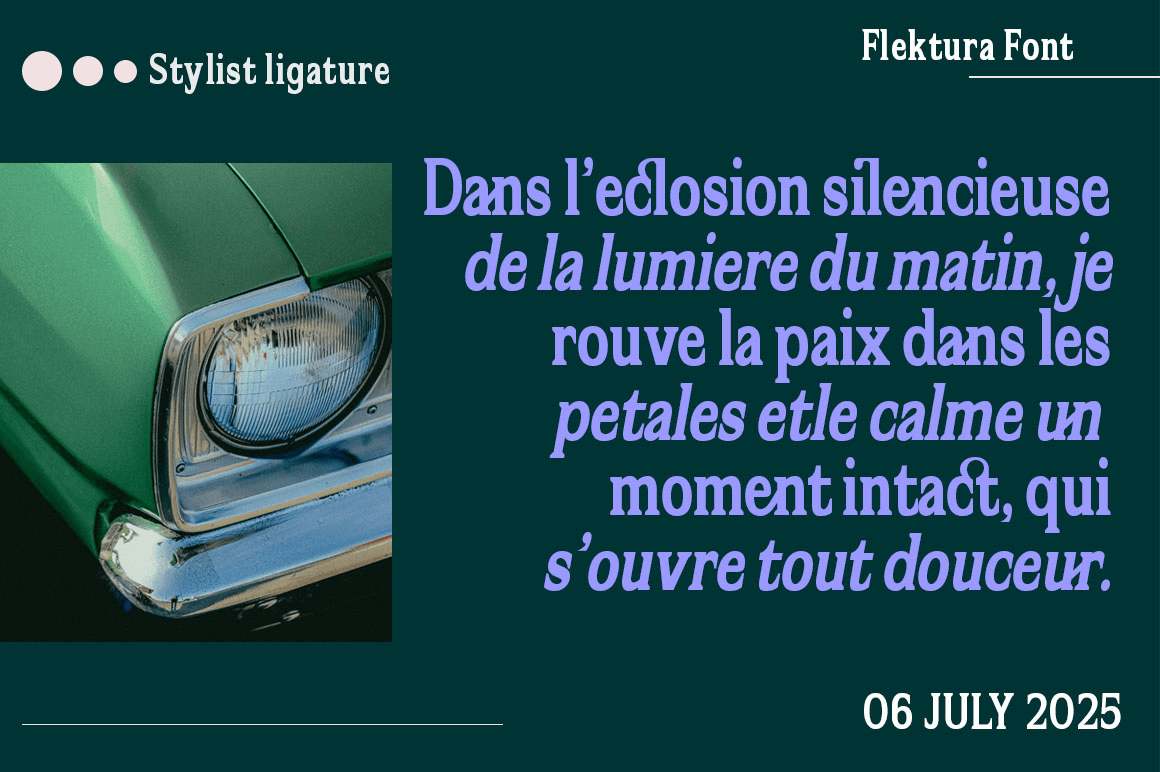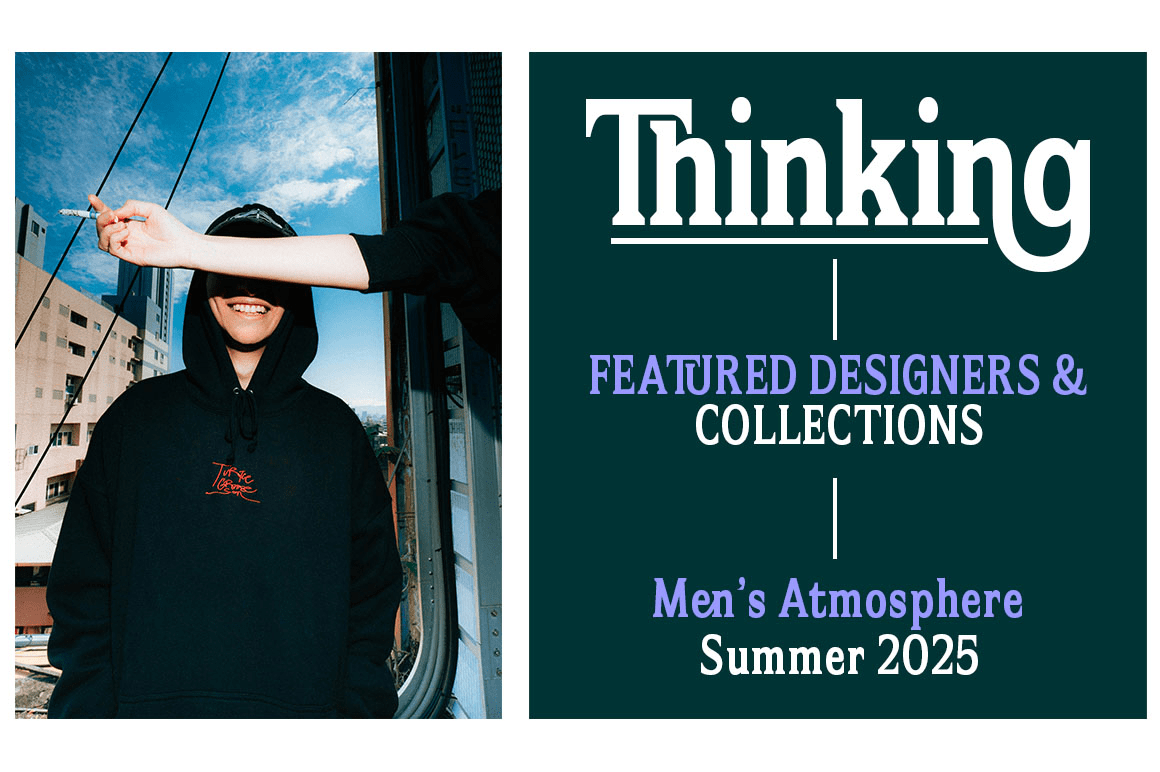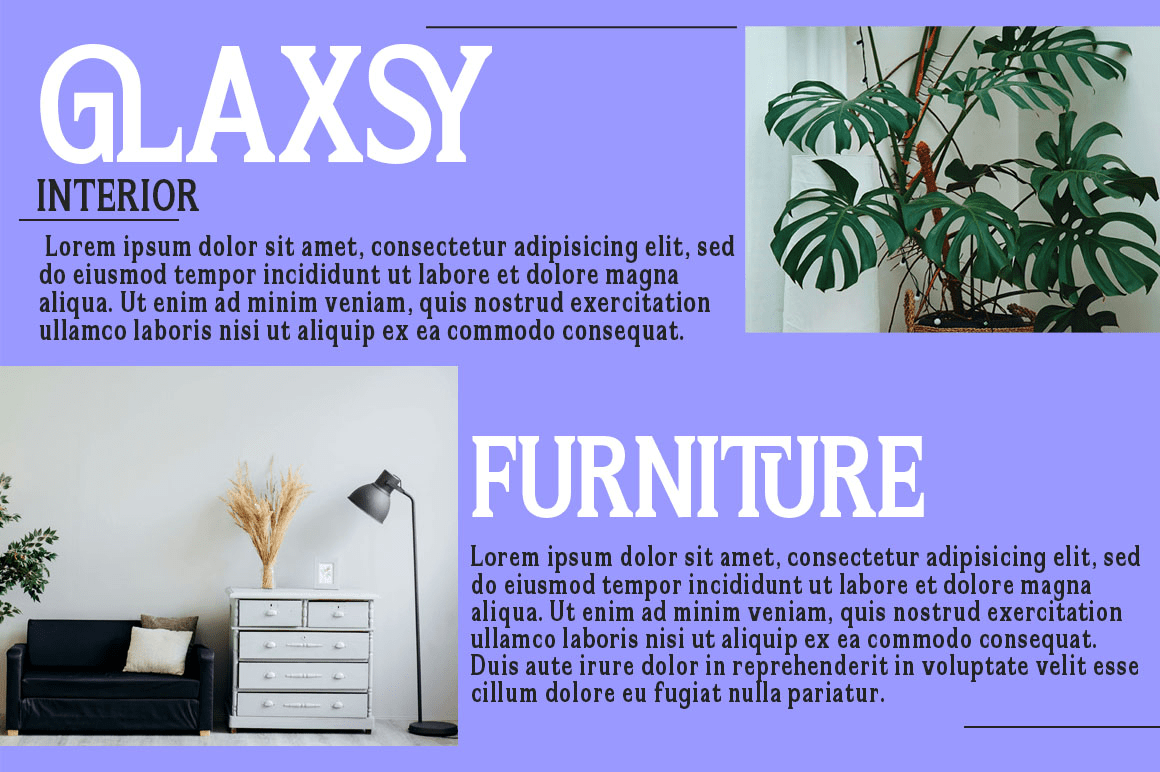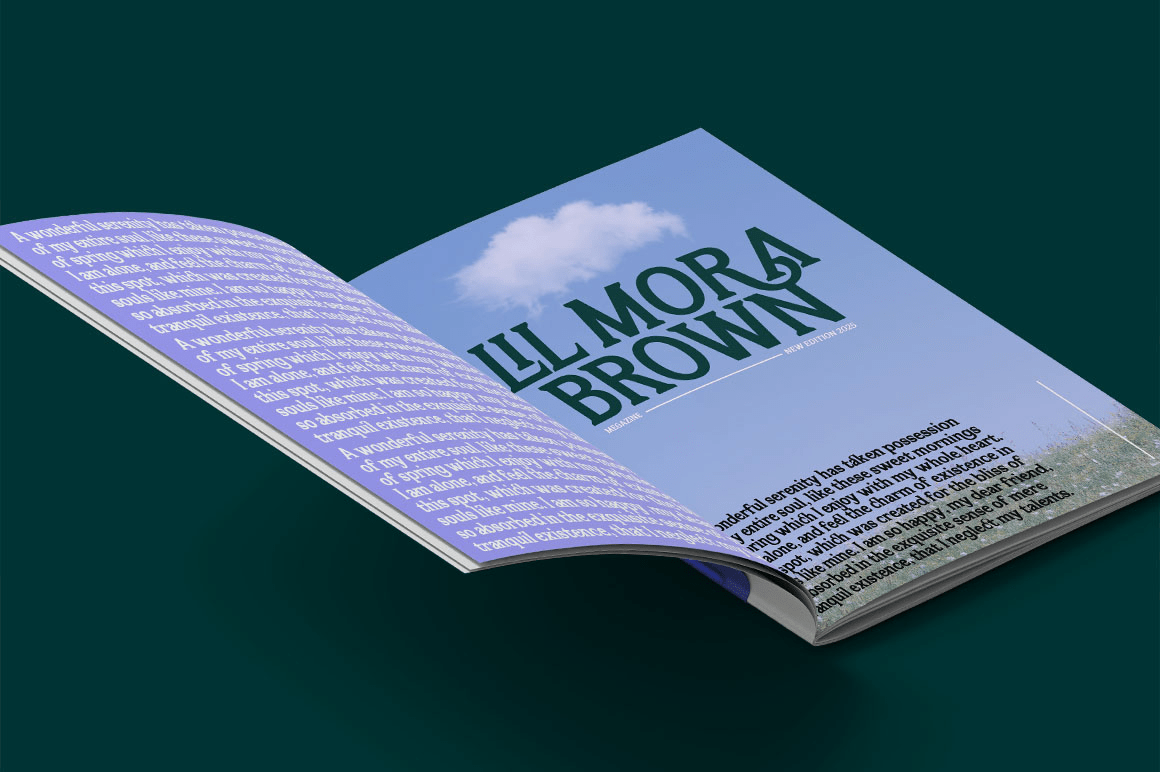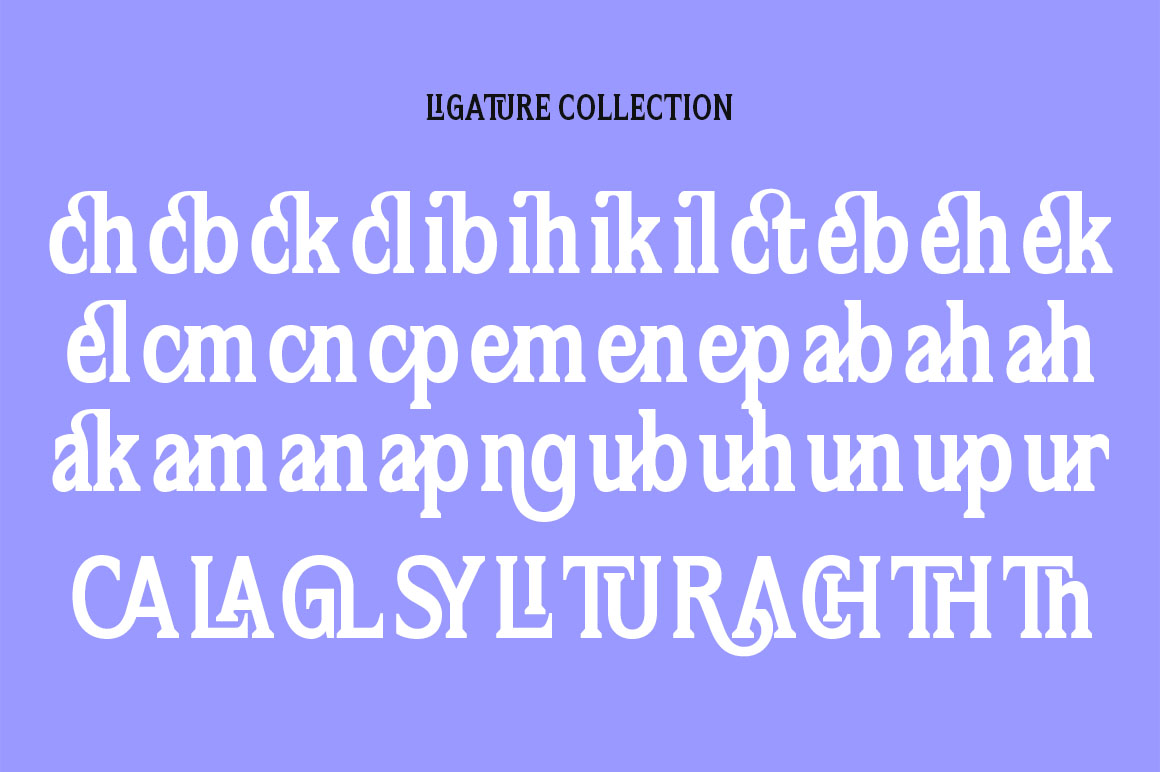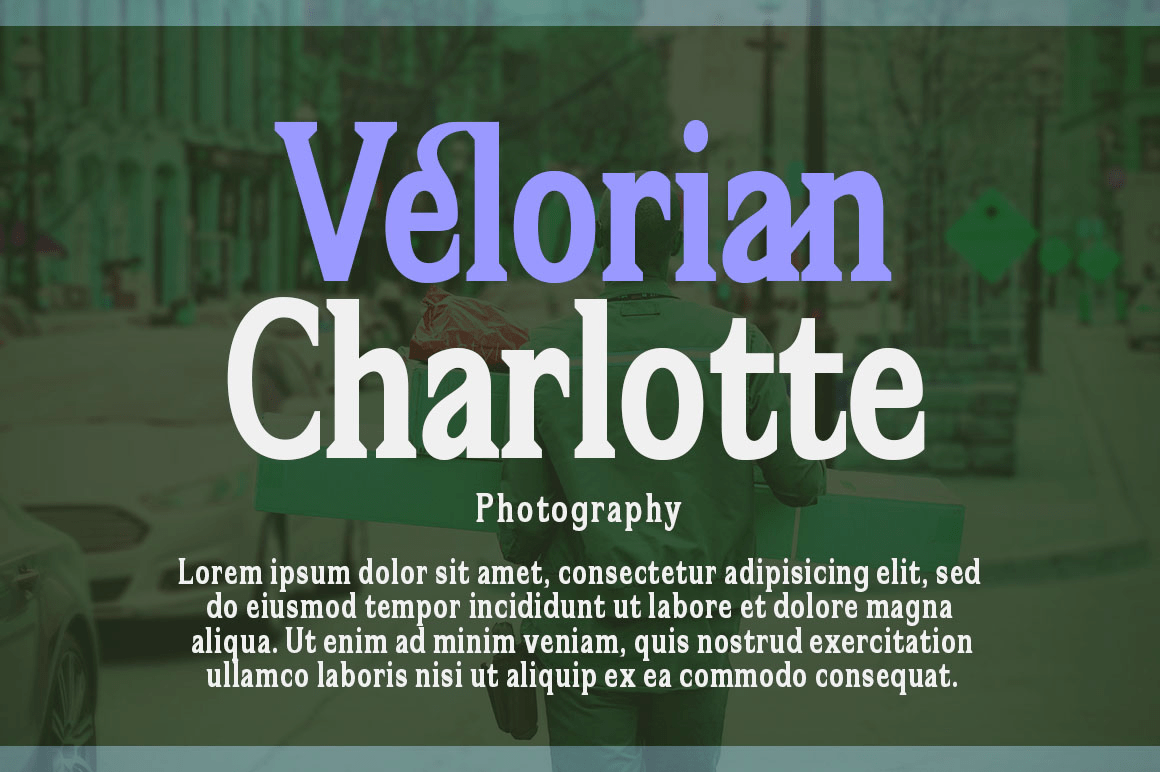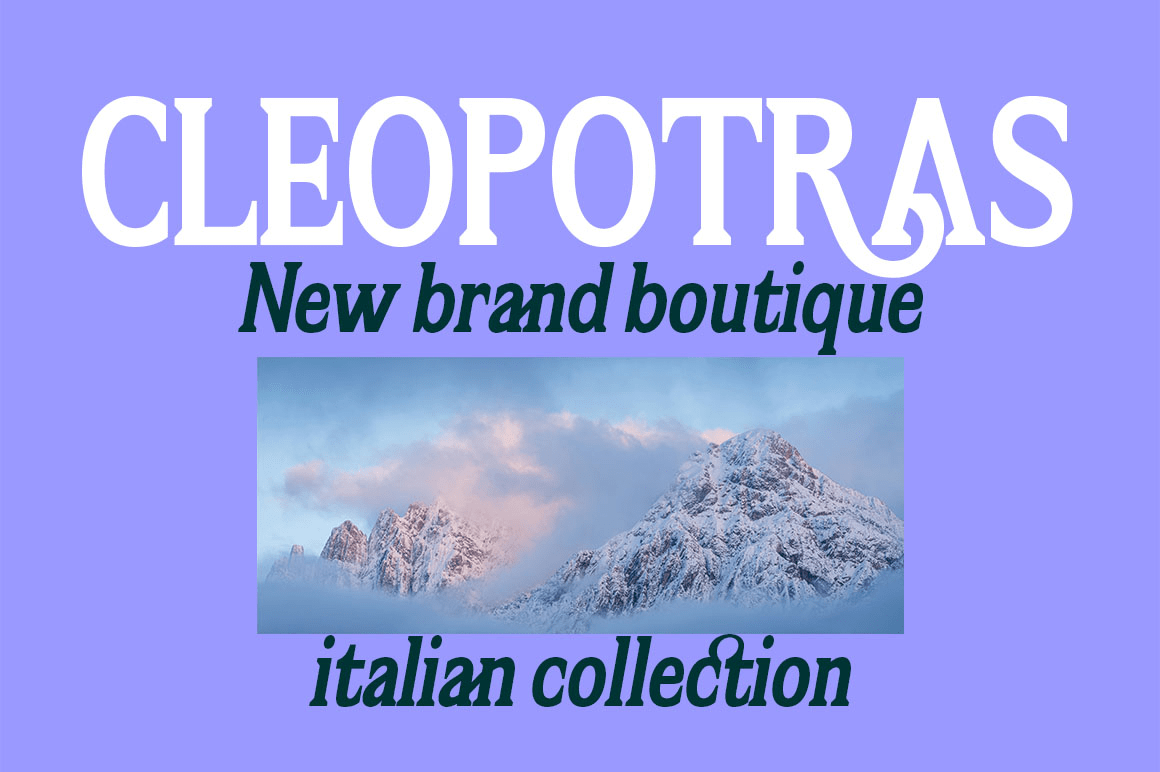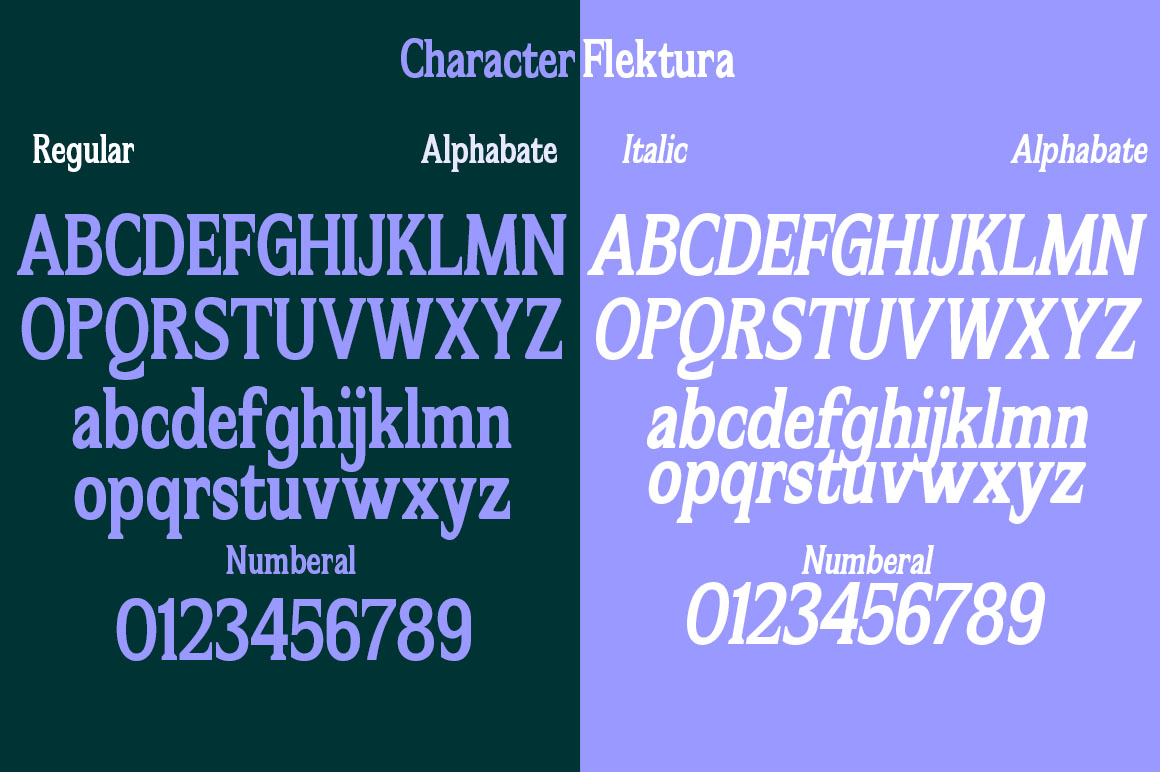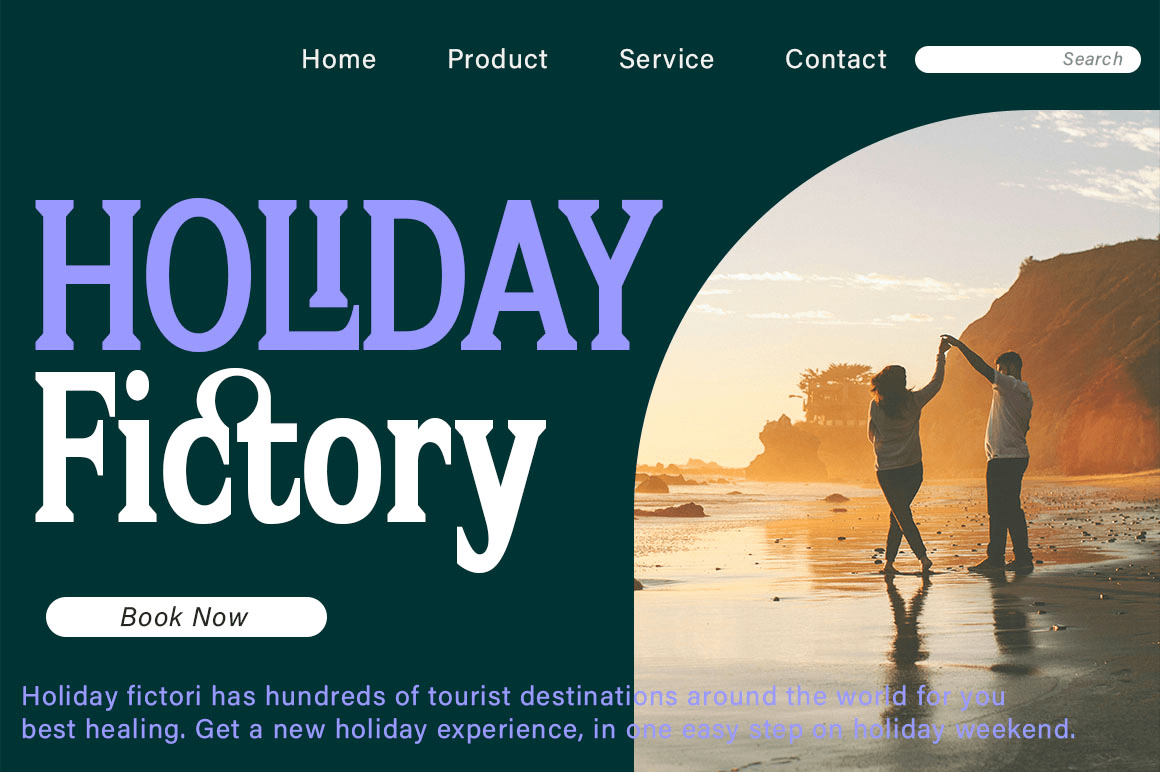
Flektura
Font Family by Propertype
Flektura is a elegant and warm serif typeface with a nuance classic. This typeface was intended to
improve upon the legibility.
Good choice for branding, magazines, posters, advertising, print, packaging, headlines, web design etc.